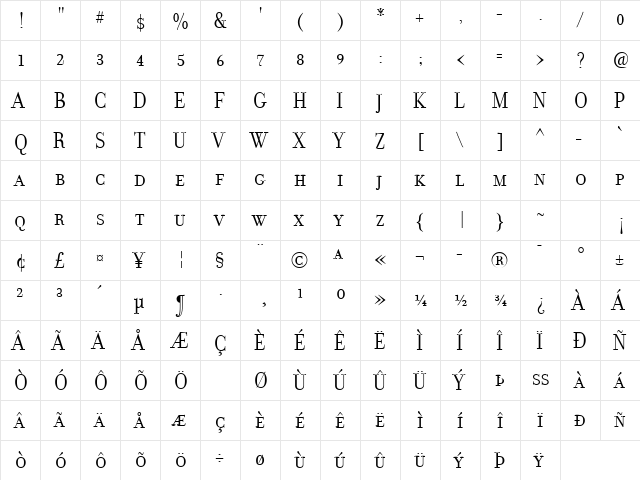
FilosofiaGrandCaps Regular
Design Context for FilosofiaGrandCaps Typeface
FilosofiaGrandCaps offers clean, dependable letterforms without strong stylistic allegiance, making it a practical choice for designers who need flexibility.
Pro Tip: Pair FilosofiaGrandCaps with a font of contrasting weight or personality to build a more expressive typographic hierarchy.